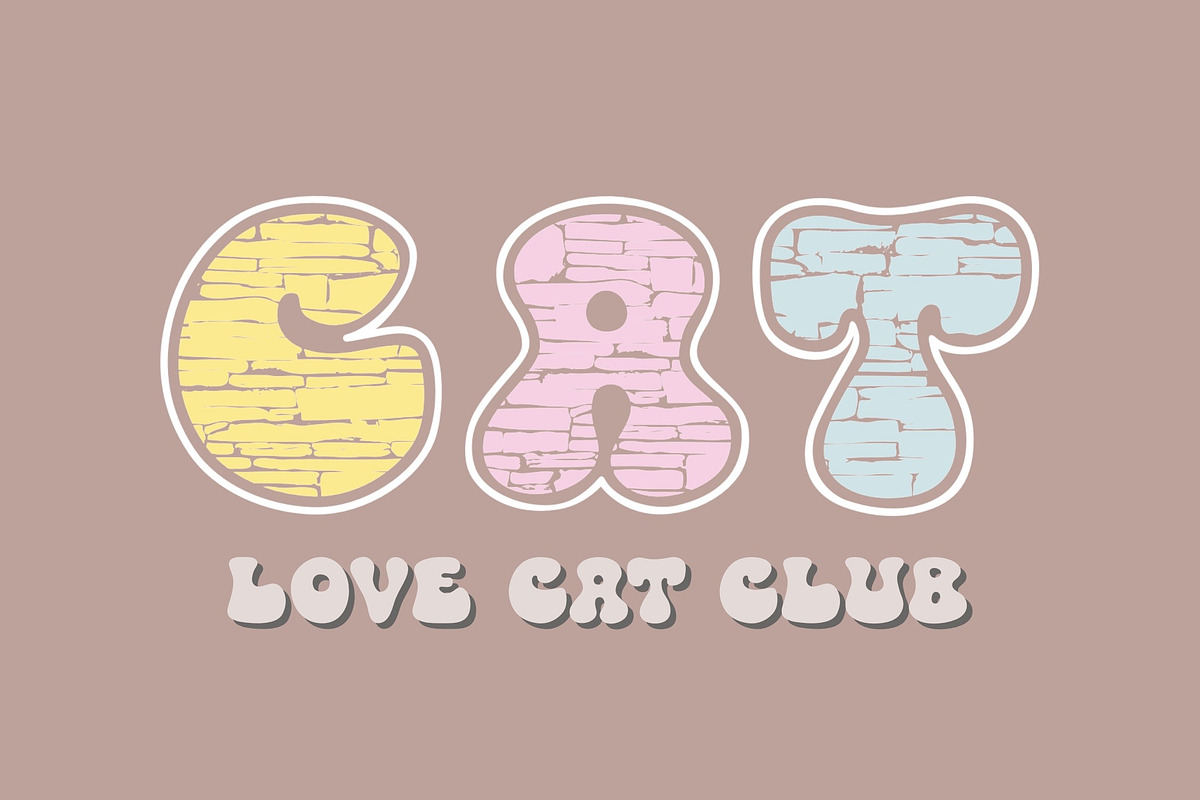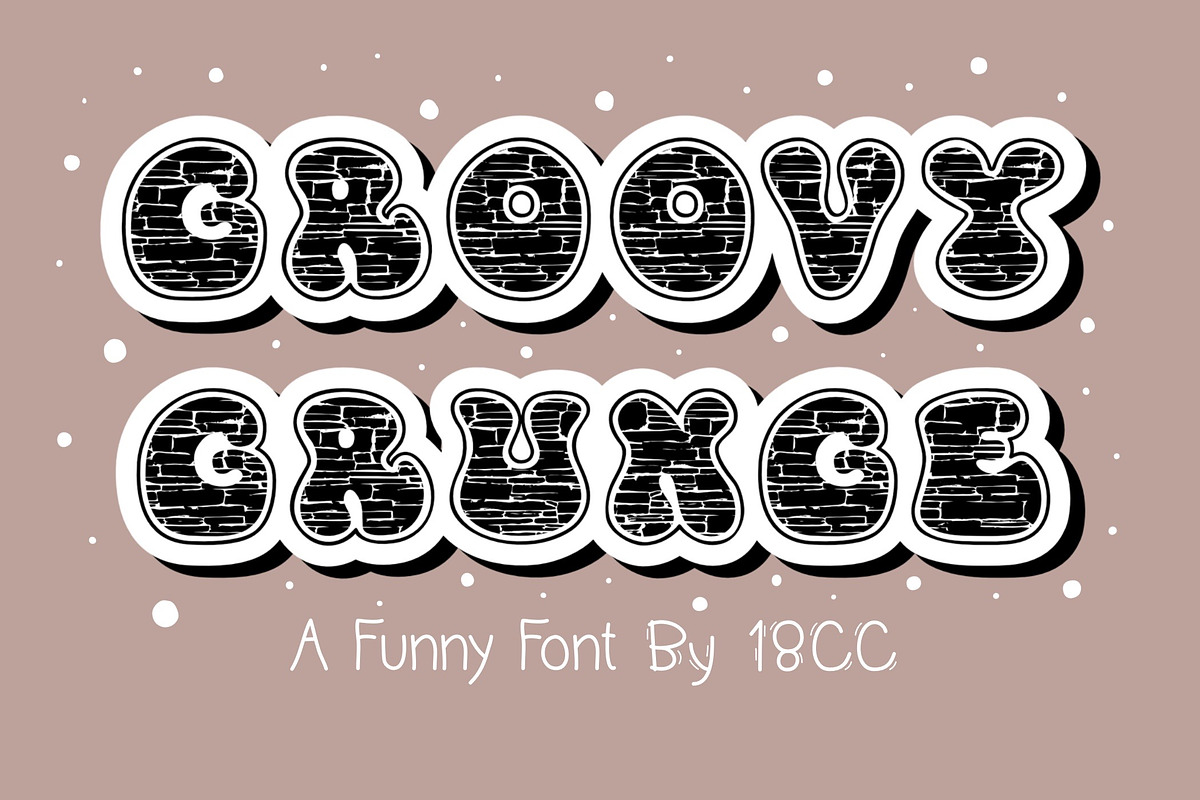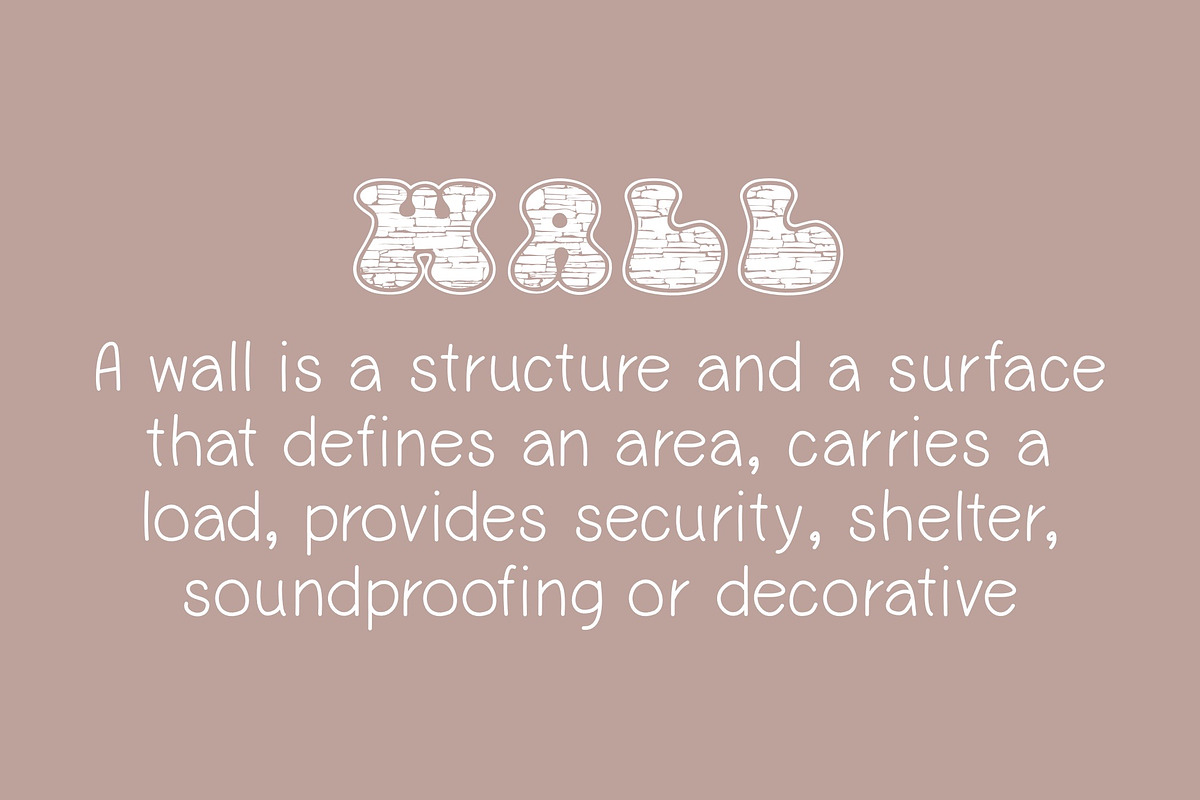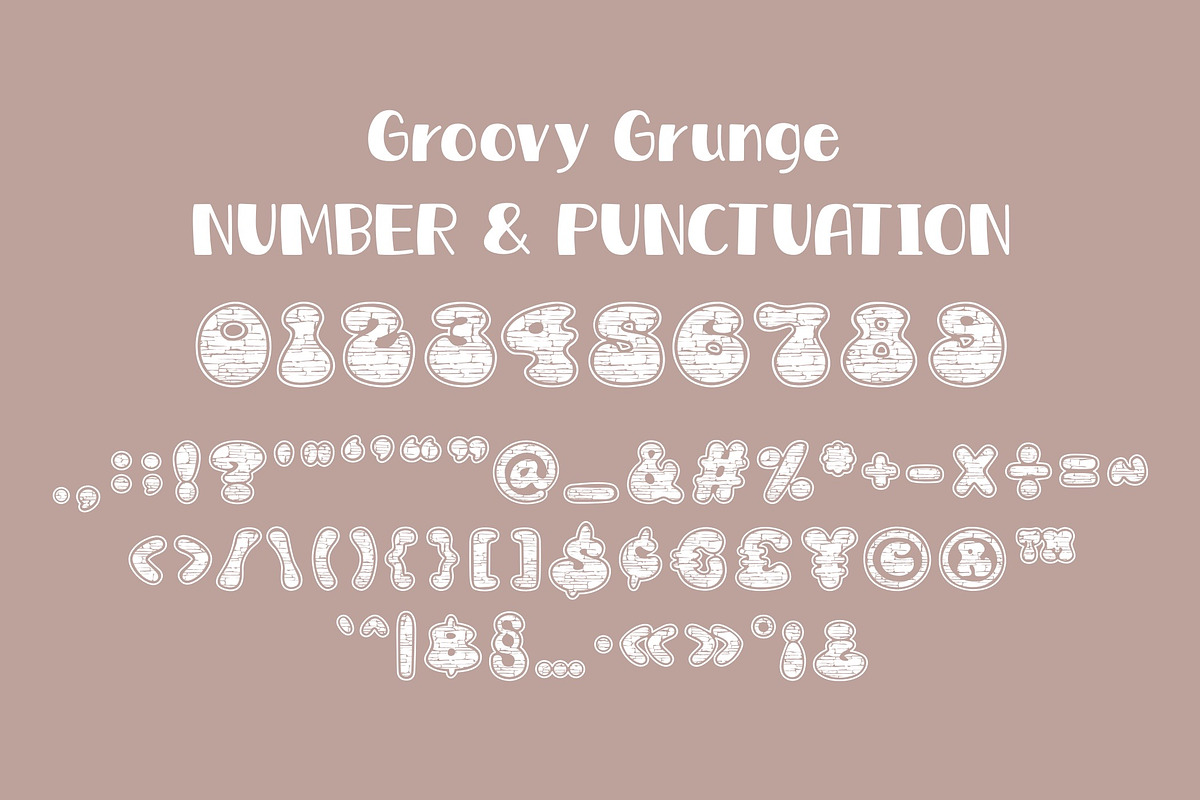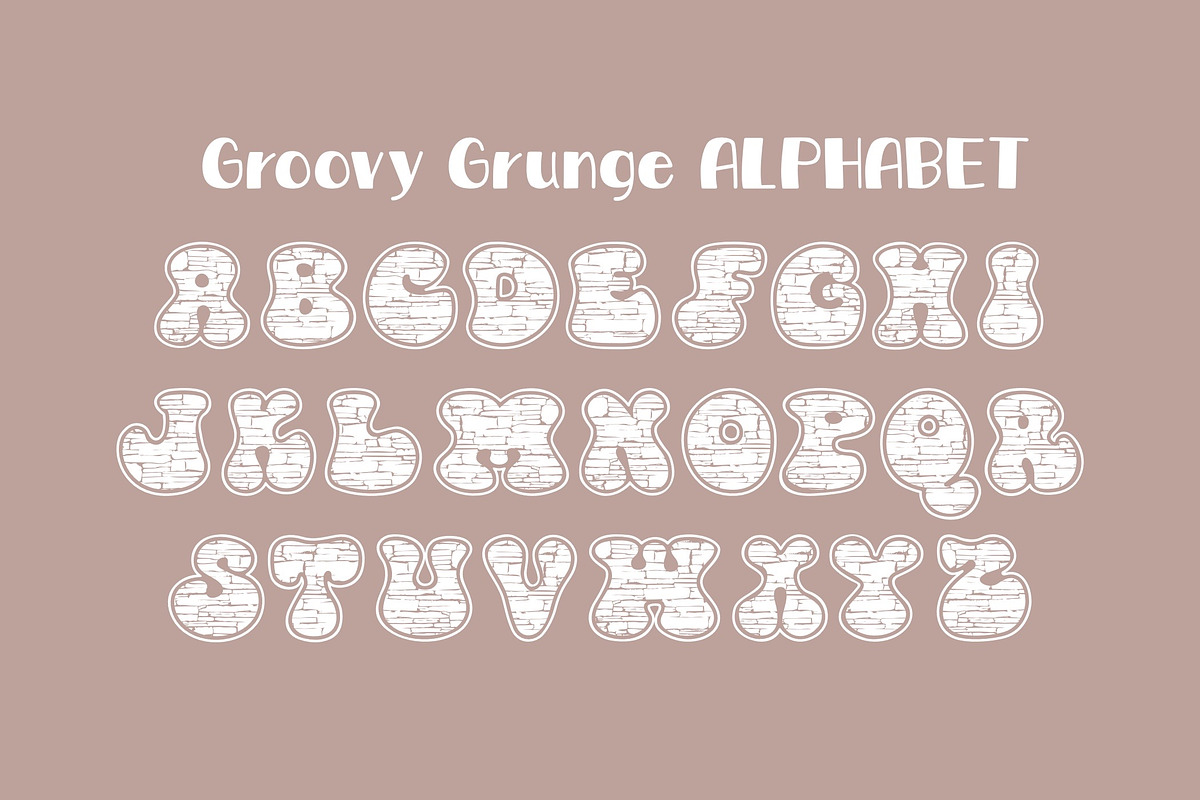
Groovy Grunge is a vintage and grunge font. This font is the perfect fit for all of your logos, branding, social media, crafty DIY projects, and much more!